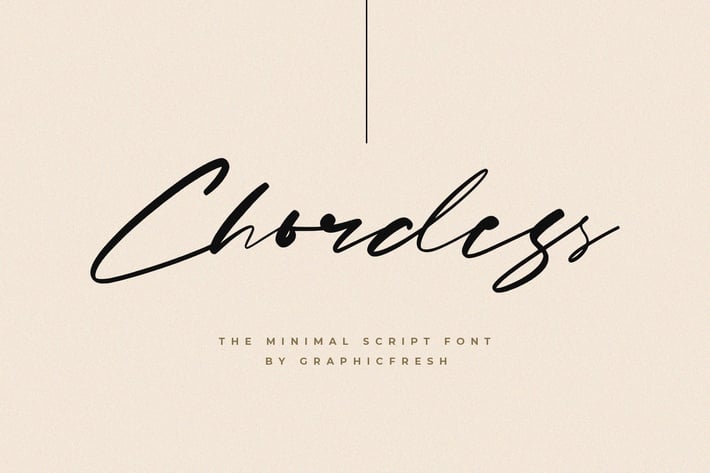
Chordess - The Minimal Script Font
Introducing Chordess - The Minimal Script Font. It comes with an elegant and feminine style which is perfect to make any design stand out! This font is perfect for branding, wedding invites, magazines, mugs, business cards, quotes, posters, and more.
Chordess Type Features:
- Numerals & Punctuations
- Suitable for Headlines, Logotypes, Signs, Posters, Letterhead, T-Shirt and many more.
- Support International Language